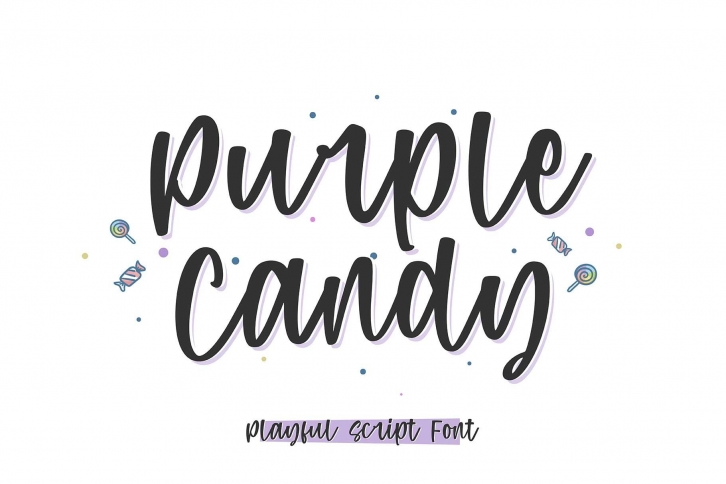
Purple Candy is a relaxed, friendly and adaptable handwritten font. Whether you’re using it for crafting, digital designing, presentations or greeting cards making, it’s perfect!Â